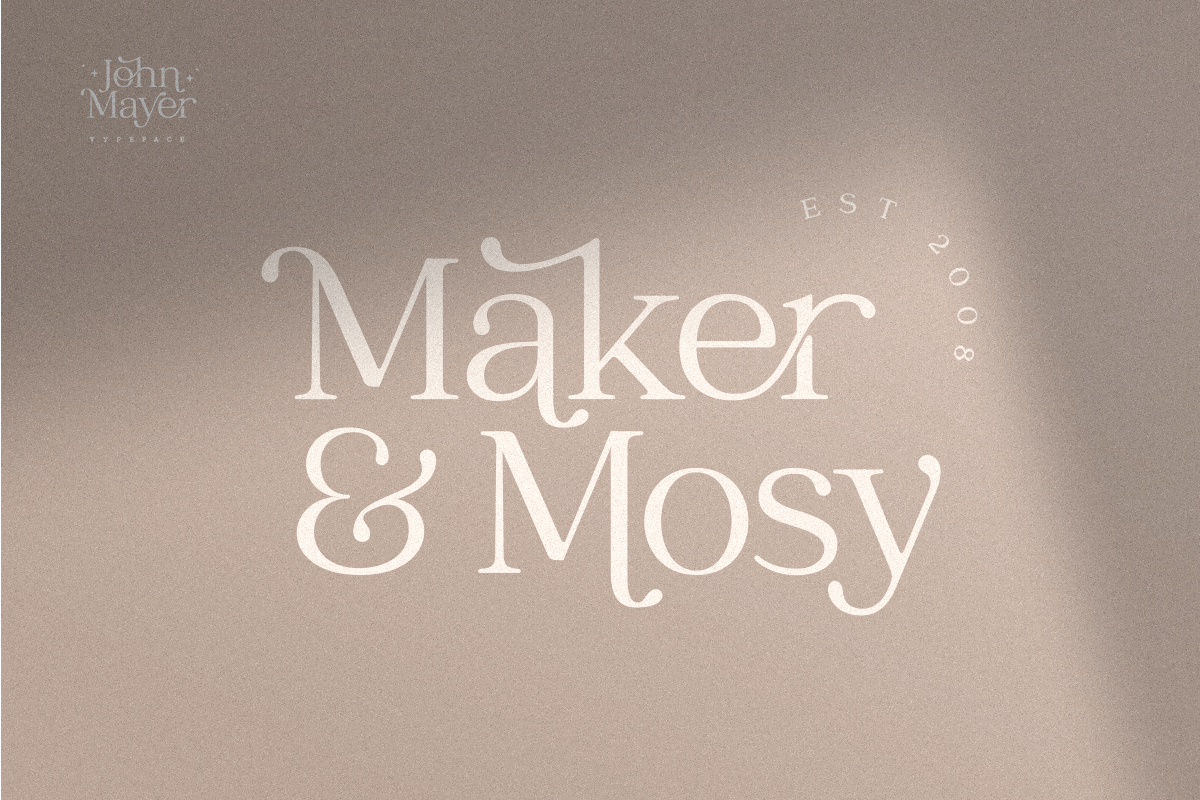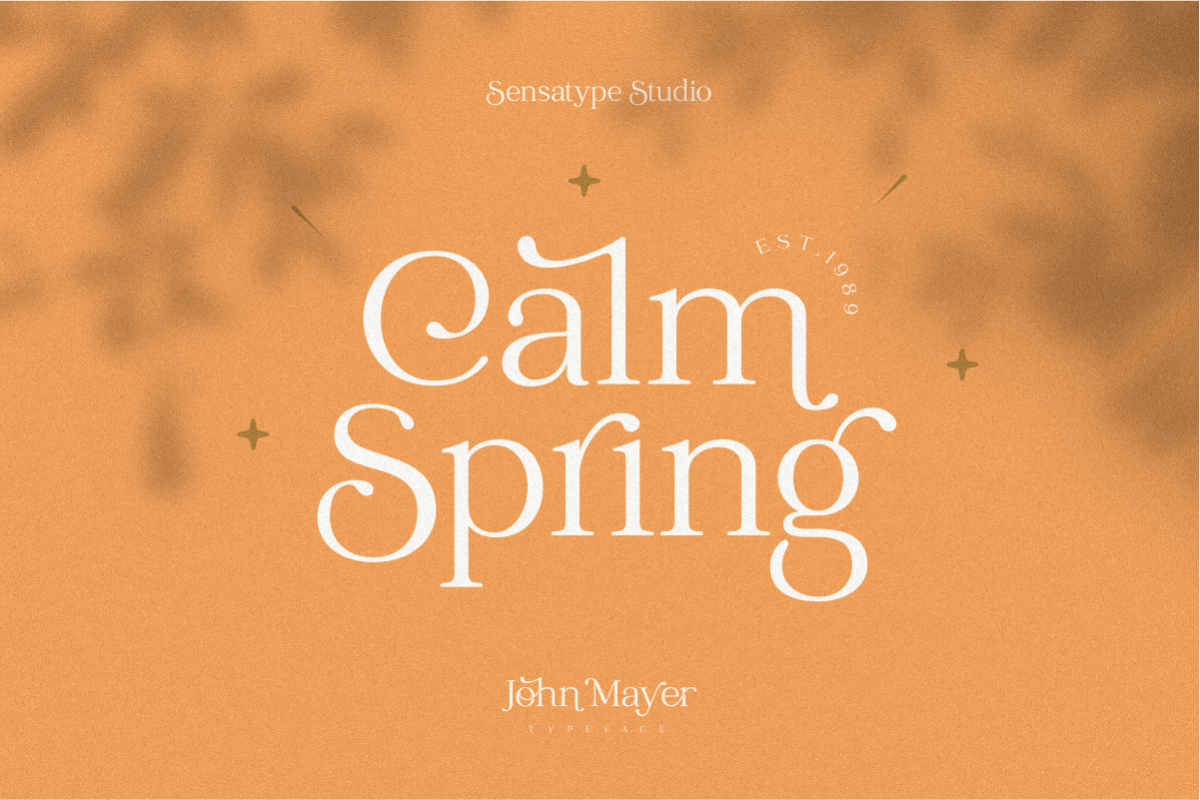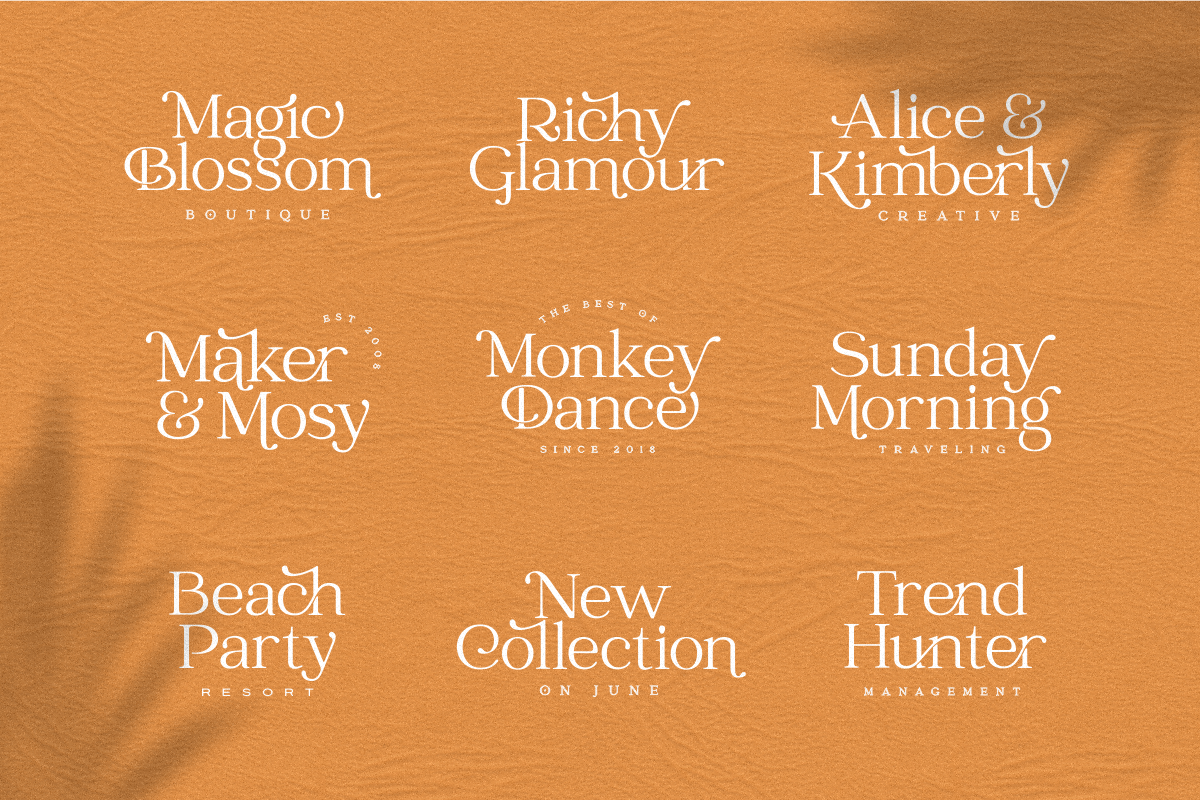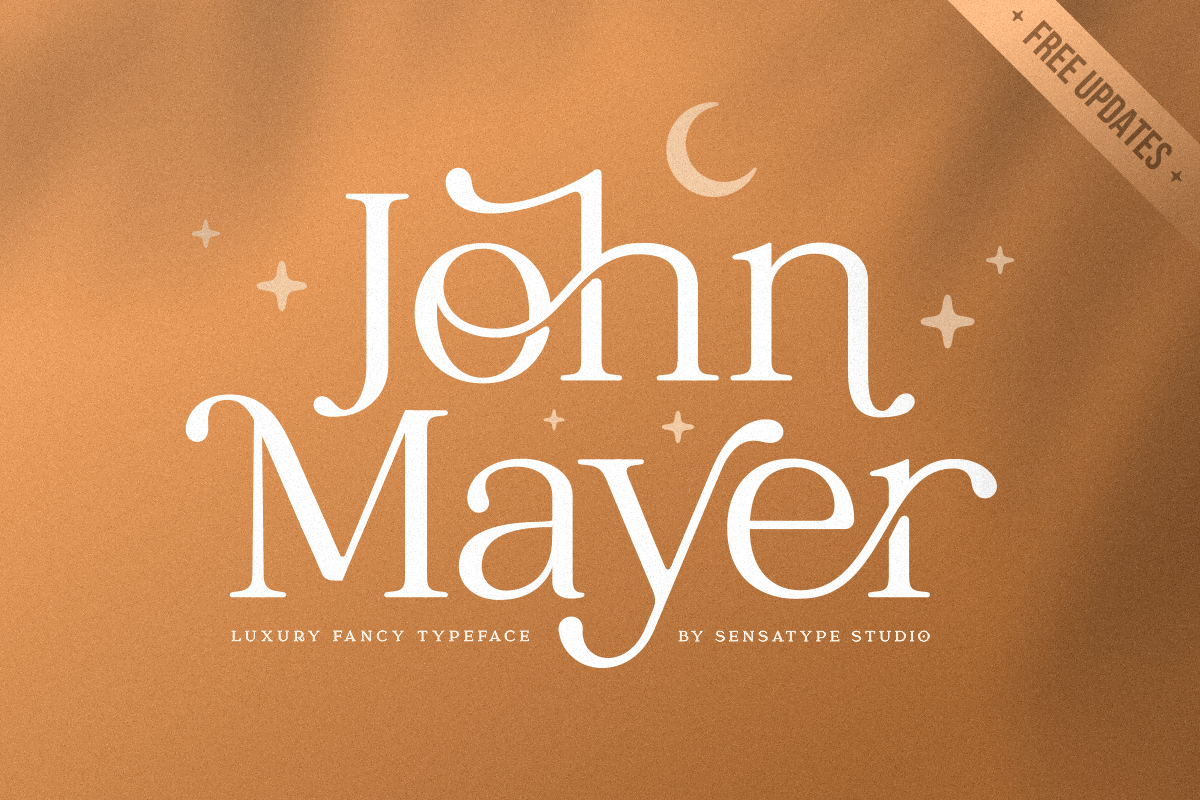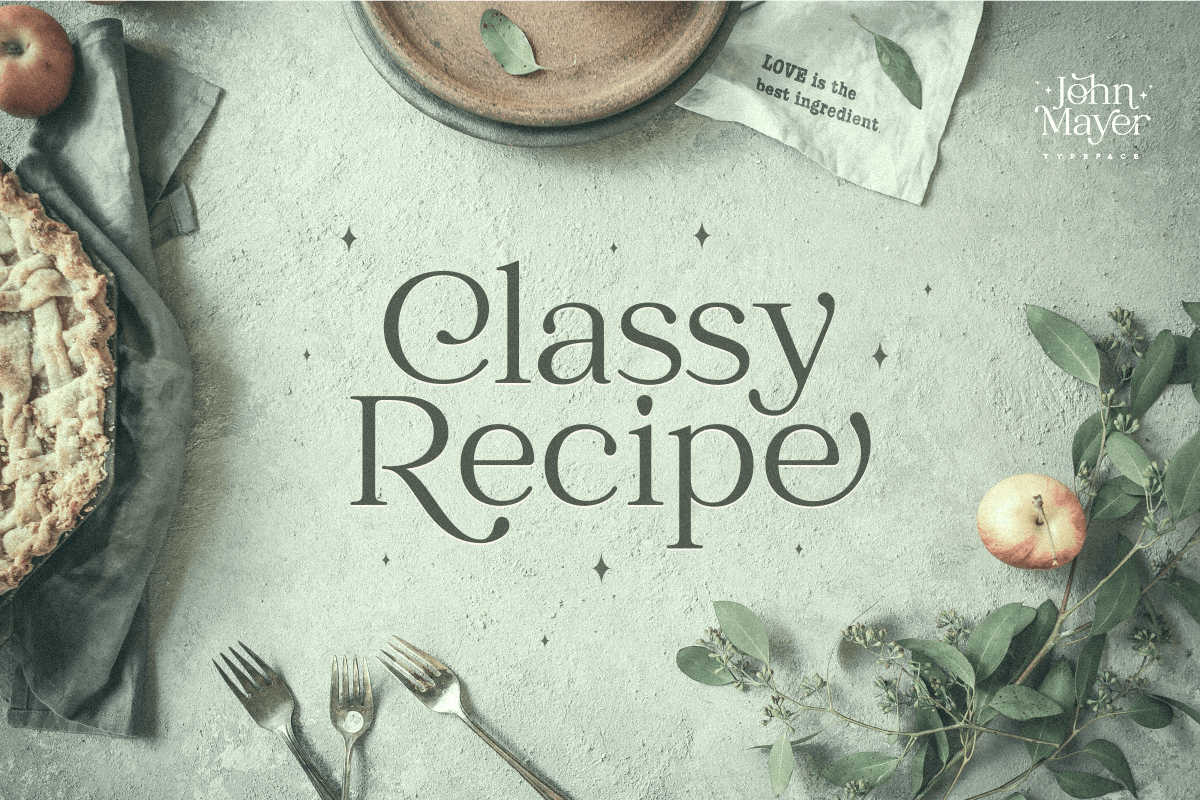
Catchy Mager is a unique and serif font for brand and logo design. This font is perfect for posters, social media posts, branding, personal projects, etc. You will get classy, elegant, and certainly unique logos with this font.
Based on our experience as a graphic designer who works for a lot of companies, we often are requested to design a logo in a unique style but with an elegant shape. So, we try to brainstorming and create this font to make the idea is going out. This is perfect for BRANDING and LOGO DESIGN. You will get classy, elegant, and certainly unique logos with this font.
- uppercase and lowercase letters
- multilingual symbols
- numerals
- punctuation